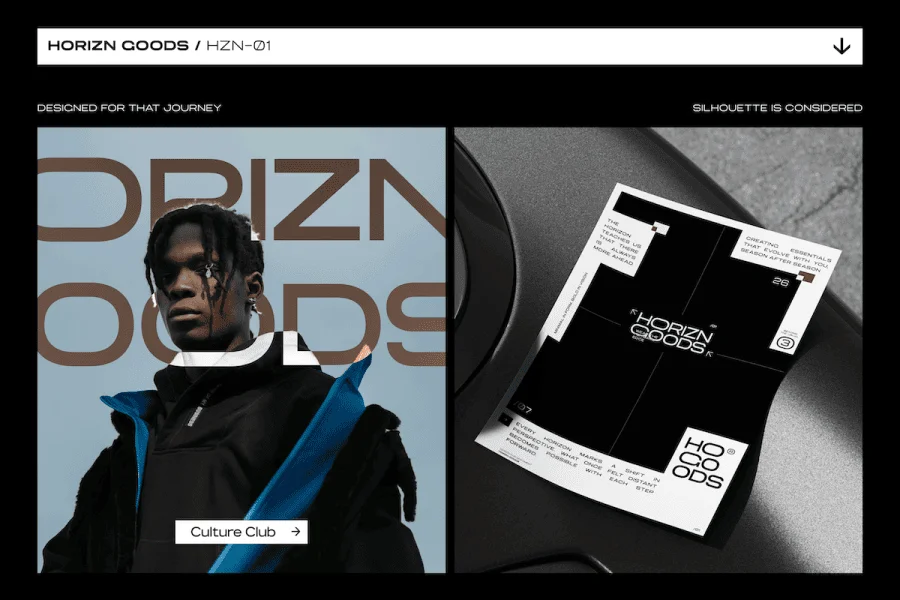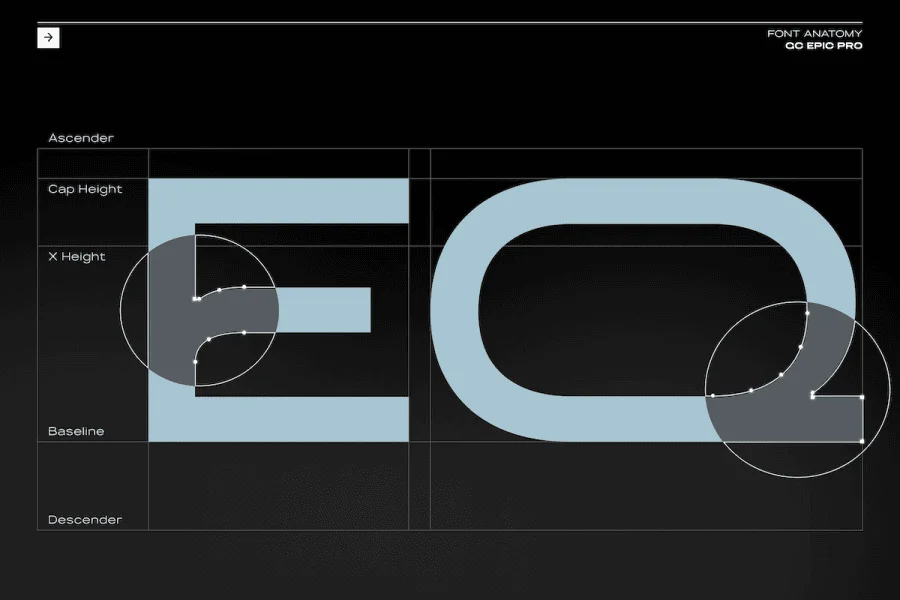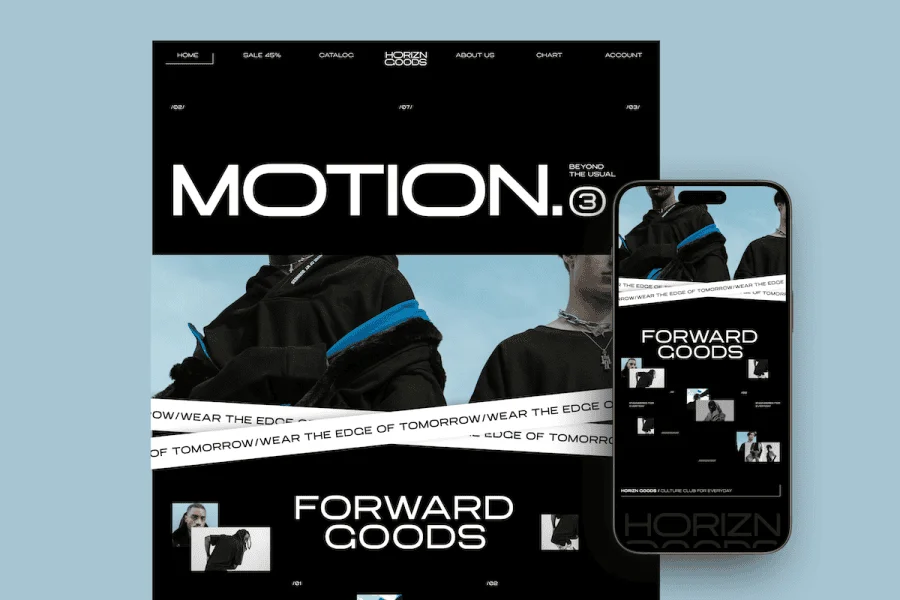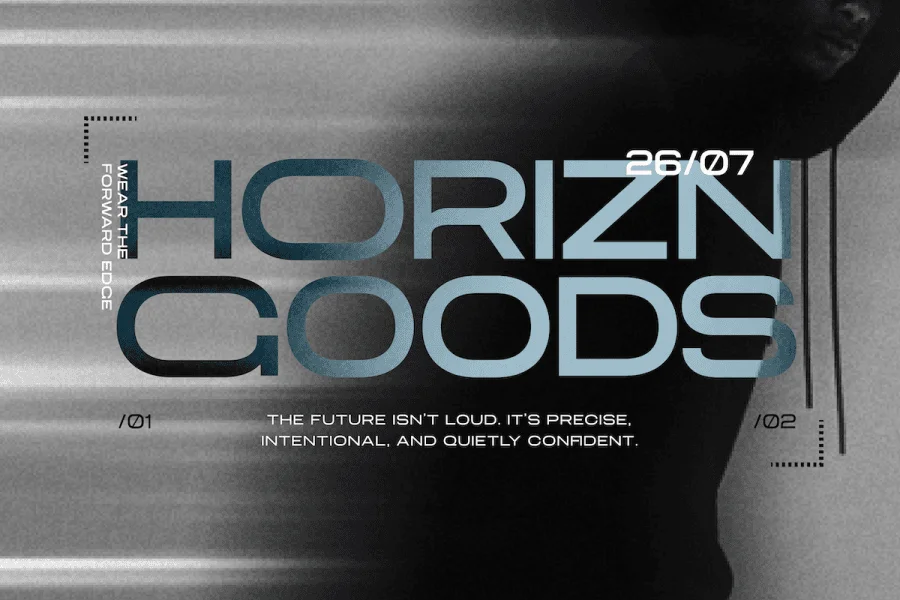
GC EPIC PRO Vol. II – Future Extended Sans marks the next evolution of the EPIC PRO typeface, expanding the original concept with a broader family system and refined glyph construction. This update is designed to provide greater flexibility, consistency, and precision for contemporary and future-facing design projects.
Built on its signature extended sans serif structure, Vol. II introduces improved proportions and smoother weight distribution across the expanded family. Key glyphs have been carefully reworked to enhance balance, legibility, and visual rhythm—ensuring stronger performance across both bold display settings and functional layouts.
With its futuristic character, wide letterforms, and confident geometry, GC EPIC PRO Vol. II is ideal for branding systems, headlines, posters, editorial compositions, and modern digital interfaces. The expanded family empowers designers to create clearer hierarchy and cohesive visual systems while maintaining a strong, forward-looking identity.